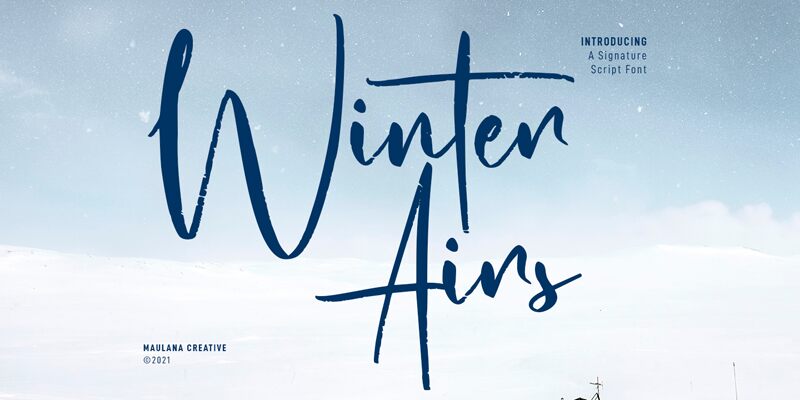
Winter Airs Free Regular
Winter Airs is a signature font designed by Maulana Creative. Its light weight and stylish script make it perfect for crafting logos, wedding invitations, apparel designs and more. Use Winter Airs to add a touch of elegance to any project!